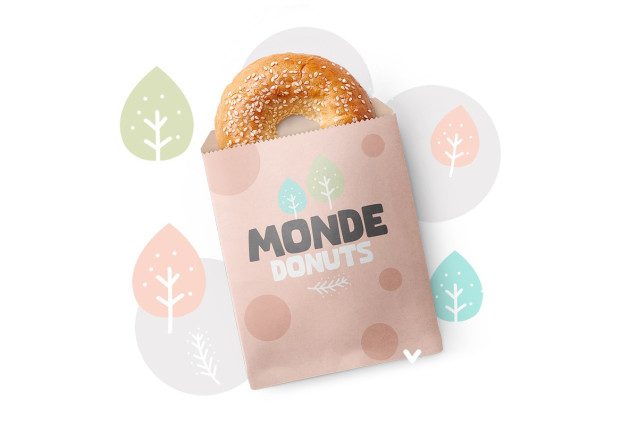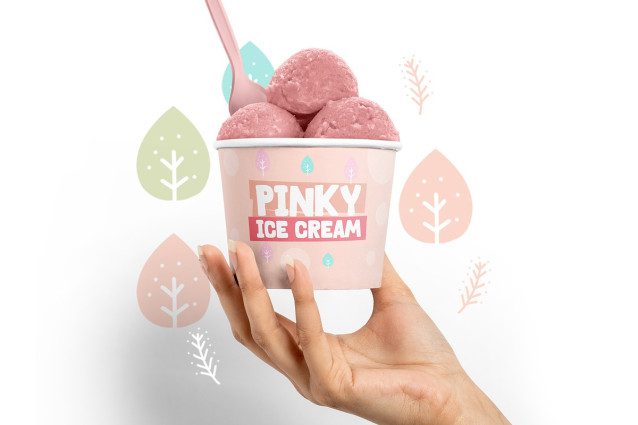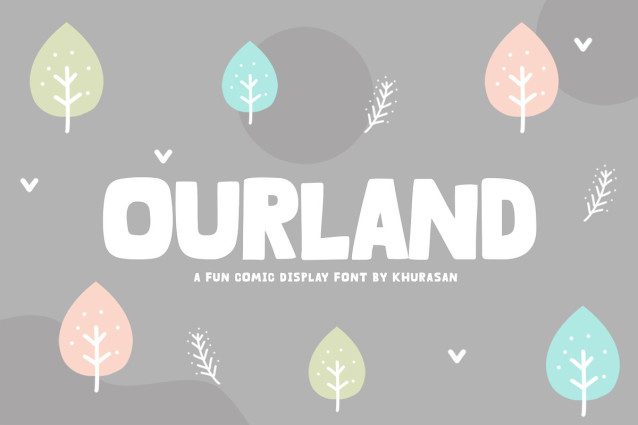
Ourland Font
Ourland Font a fun display typeface with cheerful theme for your fun project. Ourland font suitable for logo, branding, greeting card, poster and any design that you create.